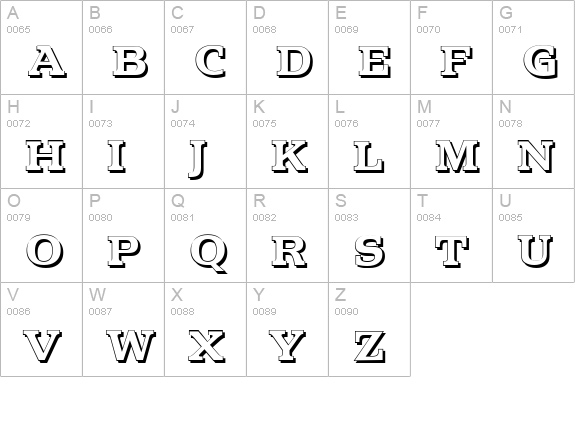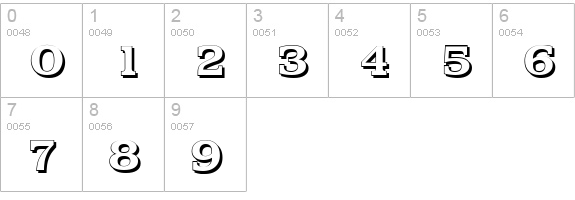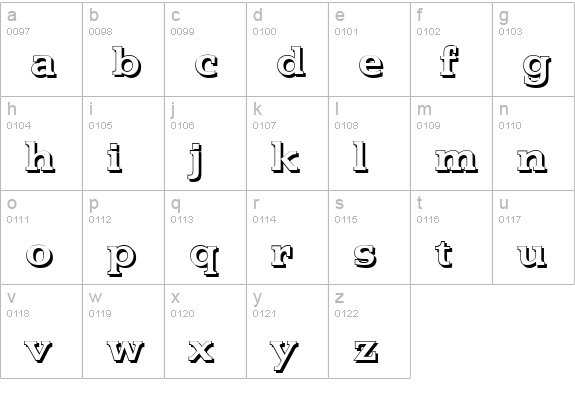
PenthouseShadow-Bold Font Details
PenthouseShadow-Bold is a strong, high-contrast variant in the PenthouseShadow typeface family \xE2\x80\x94 well suited to headlines, attention-grabbing titles, and strong calls-to-action.
PenthouseShadow-Bold font is a stunning display typeface that exudes elegance and sophistication. Its bold and striking appearance makes it perfect for creating eye-catching headlines, titles, and logos. The unique shadow effect adds depth and dimension to any design, making it a standout choice for projects that require a touch of drama. Best of all, PenthouseShadow-Bold font is available for free download at FontsMarket.com. This means that you can easily access this beautiful typeface without any cost, making it a great option for both personal and commercial use. Don't miss out on the opportunity to enhance your designs with the luxurious and stylish PenthouseShadow-Bold font today!